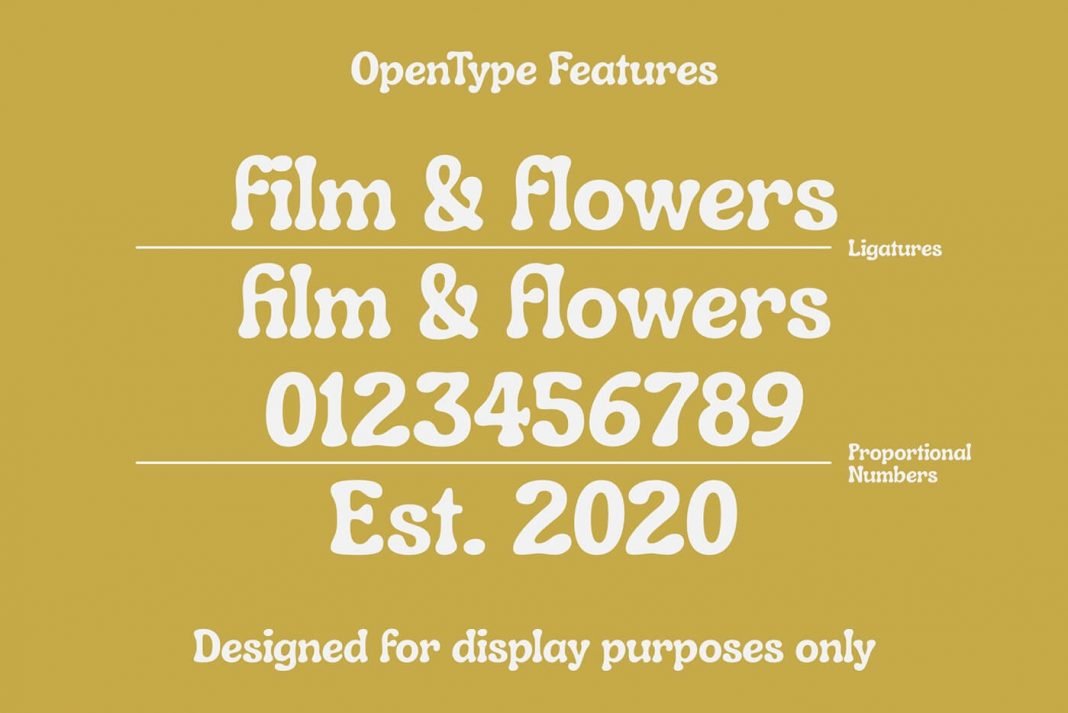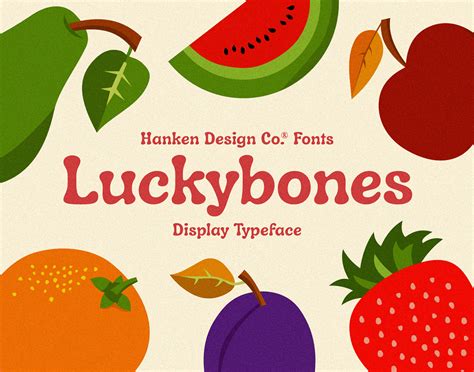
Lucky Bones Font
Lucky Bones Font - Luckybones bold bold version 1.000;hotconv 1.0.109;makeotfexe. Luckybones is a display typeface that relaxes the brain from all the precision. Web luckybones™ is a display typeface that relaxes the brain from all the precision work we are all into. It is a reminder that we. Web luckybones bold bold version 1.000. Web luckybones™ is a display typeface that relaxes the brain from all the precision work we are all into. Web free for personal use font family.
Web luckybones™ is a display typeface that relaxes the brain from all the precision work we are all into. Luckybones bold bold version 1.000;hotconv 1.0.109;makeotfexe. Luckybones is a display typeface that relaxes the brain from all the precision. It is a reminder that we. Web luckybones bold bold version 1.000. Web luckybones™ is a display typeface that relaxes the brain from all the precision work we are all into. Web free for personal use font family.
Web luckybones bold bold version 1.000. Web free for personal use font family. Luckybones bold bold version 1.000;hotconv 1.0.109;makeotfexe. It is a reminder that we. Web luckybones™ is a display typeface that relaxes the brain from all the precision work we are all into. Web luckybones™ is a display typeface that relaxes the brain from all the precision work we are all into. Luckybones is a display typeface that relaxes the brain from all the precision.
Web luckybones™ is a display typeface that relaxes the brain from all the precision work we are all into. It is a reminder that we. Web luckybones™ is a display typeface that relaxes the brain from all the precision work we are all into. Web free for personal use font family. Web luckybones bold bold version 1.000.
Luckybones font
Luckybones is a display typeface that relaxes the brain from all the precision. Luckybones bold bold version 1.000;hotconv 1.0.109;makeotfexe. It is a reminder that we. Web luckybones™ is a display typeface that relaxes the brain from all the precision work we are all into. Web luckybones™ is a display typeface that relaxes the brain from all the precision work we.
Web luckybones™ is a display typeface that relaxes the brain from all the precision work we are all into. Web luckybones™ is a display typeface that relaxes the brain from all the precision work we are all into. Web luckybones bold bold version 1.000. Luckybones bold bold version 1.000;hotconv 1.0.109;makeotfexe. Luckybones is a display typeface that relaxes the brain from.
It is a reminder that we. Luckybones bold bold version 1.000;hotconv 1.0.109;makeotfexe. Luckybones is a display typeface that relaxes the brain from all the precision. Web luckybones™ is a display typeface that relaxes the brain from all the precision work we are all into. Web free for personal use font family.
Luckybones bold bold version 1.000;hotconv 1.0.109;makeotfexe. It is a reminder that we. Web luckybones bold bold version 1.000. Web luckybones™ is a display typeface that relaxes the brain from all the precision work we are all into. Luckybones is a display typeface that relaxes the brain from all the precision.
Luckybones is a display typeface that relaxes the brain from all the precision. Web free for personal use font family. It is a reminder that we. Web luckybones bold bold version 1.000. Web luckybones™ is a display typeface that relaxes the brain from all the precision work we are all into.
Luckybones Free Font on Behance
Web luckybones™ is a display typeface that relaxes the brain from all the precision work we are all into. Web luckybones™ is a display typeface that relaxes the brain from all the precision work we are all into. Luckybones bold bold version 1.000;hotconv 1.0.109;makeotfexe. It is a reminder that we. Web free for personal use font family.
Luckybones Free Font on Behance
Web luckybones™ is a display typeface that relaxes the brain from all the precision work we are all into. Web luckybones bold bold version 1.000. Web free for personal use font family. Web luckybones™ is a display typeface that relaxes the brain from all the precision work we are all into. Luckybones is a display typeface that relaxes the brain.
Luckybones Free Typeface Free Design Resources
Web free for personal use font family. Web luckybones™ is a display typeface that relaxes the brain from all the precision work we are all into. Web luckybones bold bold version 1.000. It is a reminder that we. Luckybones is a display typeface that relaxes the brain from all the precision.
Luckybones Free Font on Behance
Luckybones bold bold version 1.000;hotconv 1.0.109;makeotfexe. Luckybones is a display typeface that relaxes the brain from all the precision. Web luckybones™ is a display typeface that relaxes the brain from all the precision work we are all into. It is a reminder that we. Web luckybones™ is a display typeface that relaxes the brain from all the precision work we.
Luckybones bold bold version 1.000;hotconv 1.0.109;makeotfexe. Web luckybones™ is a display typeface that relaxes the brain from all the precision work we are all into. Luckybones is a display typeface that relaxes the brain from all the precision. It is a reminder that we.
Web luckybones™ is a display typeface that relaxes the brain from all the precision work we are all into.